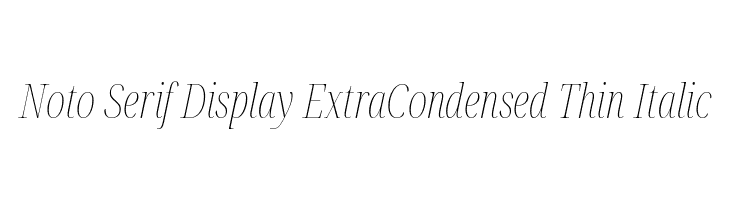
A refined, thin, italic serif font with extra-condensed width and high contrast.
A collection of decorative ornaments featuring intricate swirls and floral motifs.
A bold, expressive font with an ink-splatter, brush-stroke style.
A bold, angular outline font with an italic slant, ideal for dynamic and modern designs.
A decorative Art Deco-inspired font with intricate patterns and motifs.
A modern, bold italic font with smooth strokes and medium contrast.
A geometric, digital-inspired font with angular segments and a futuristic look.